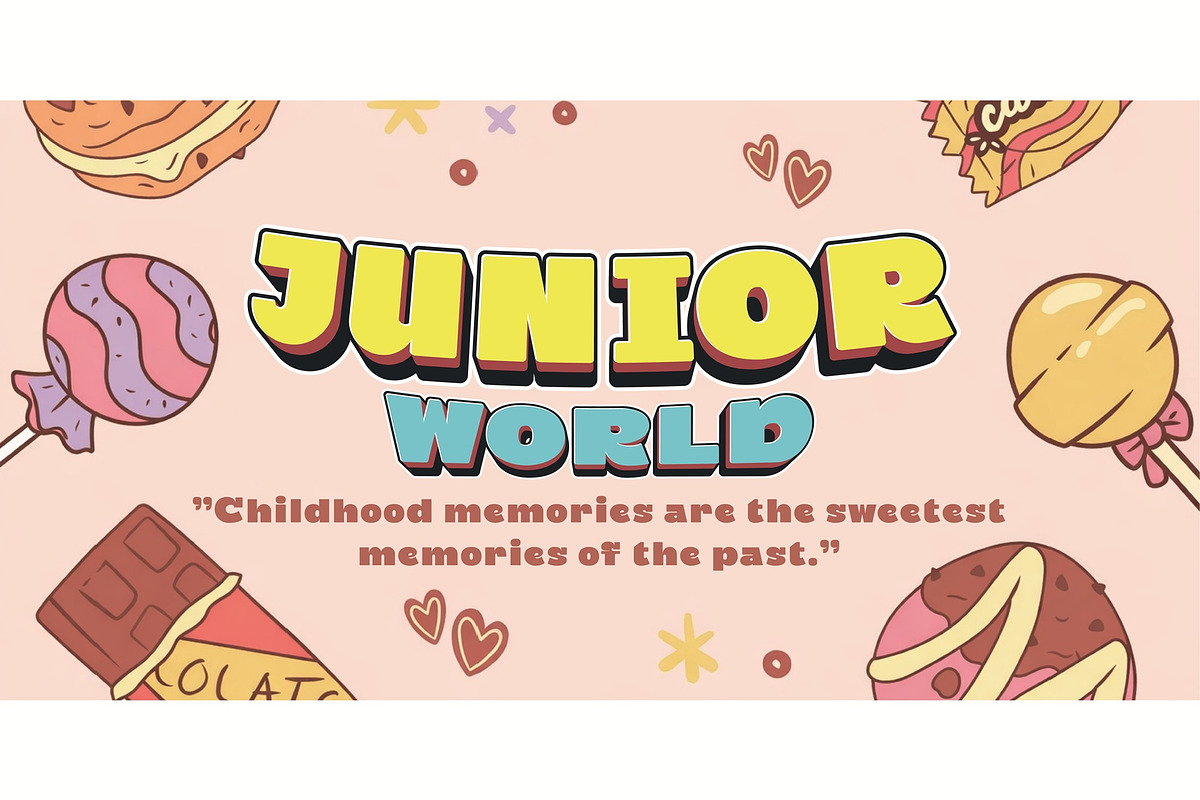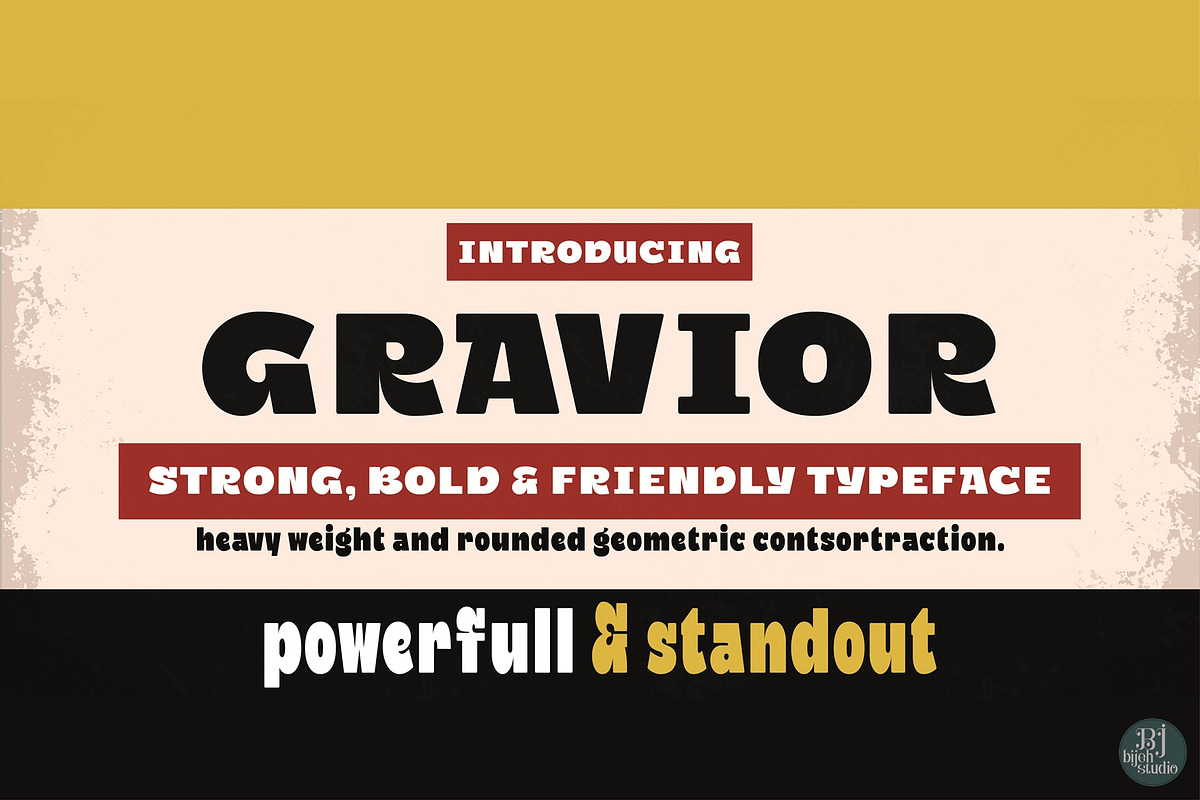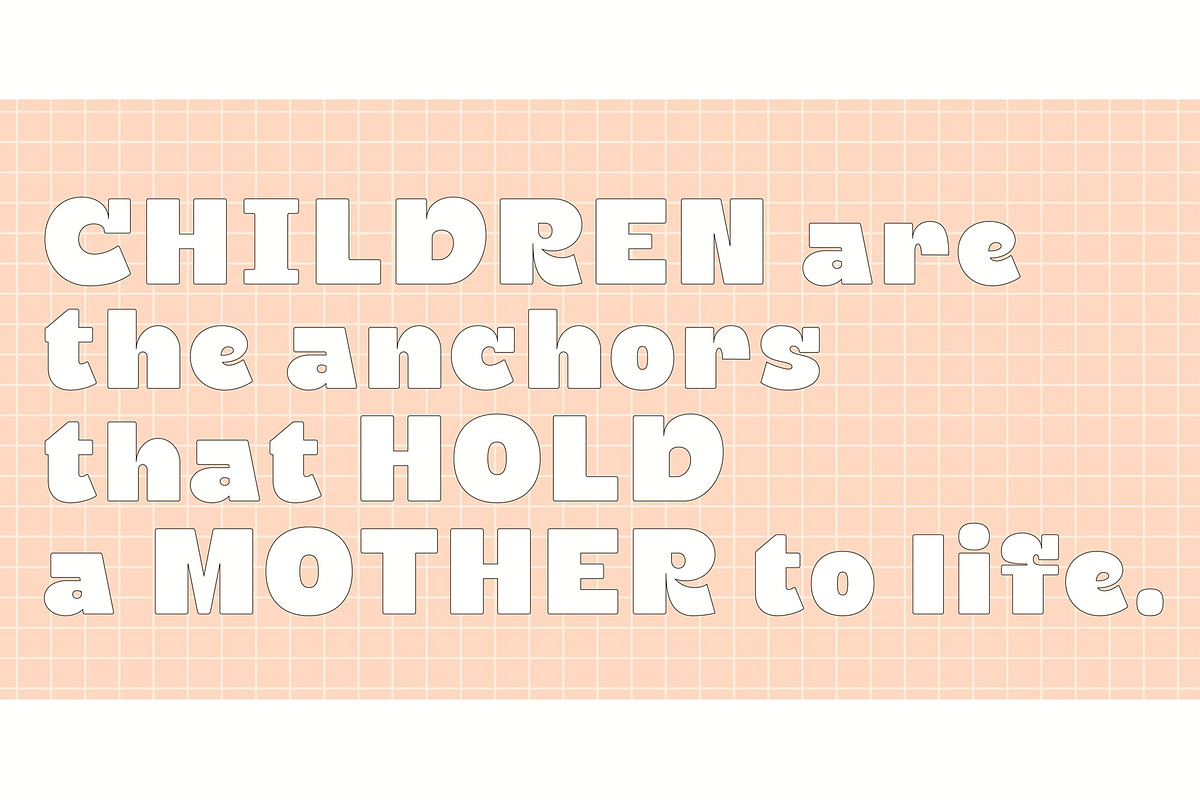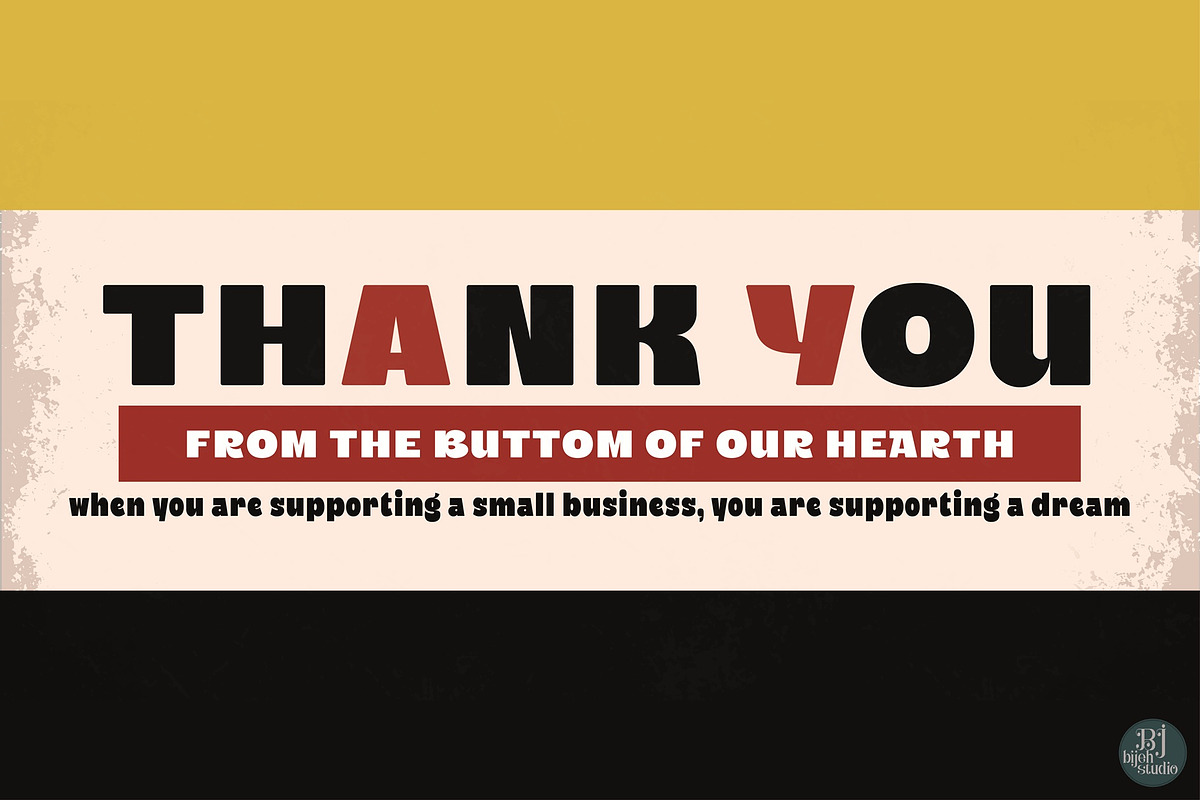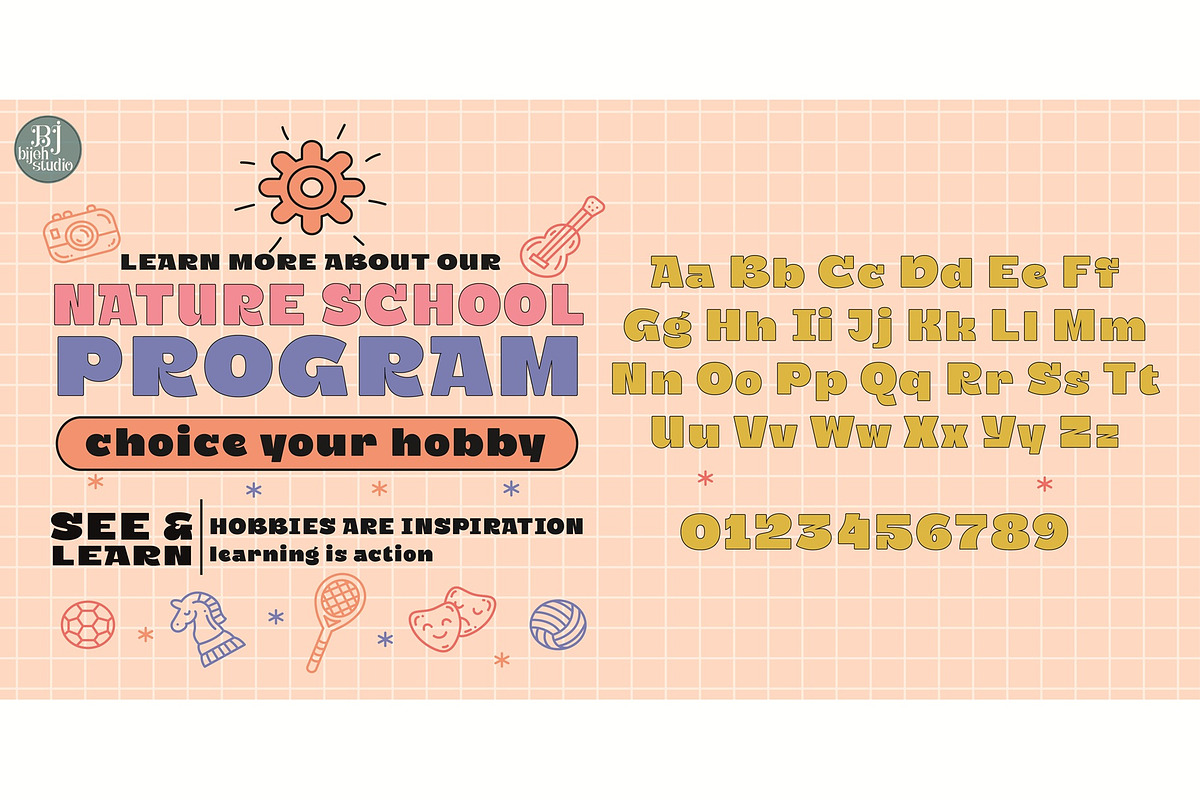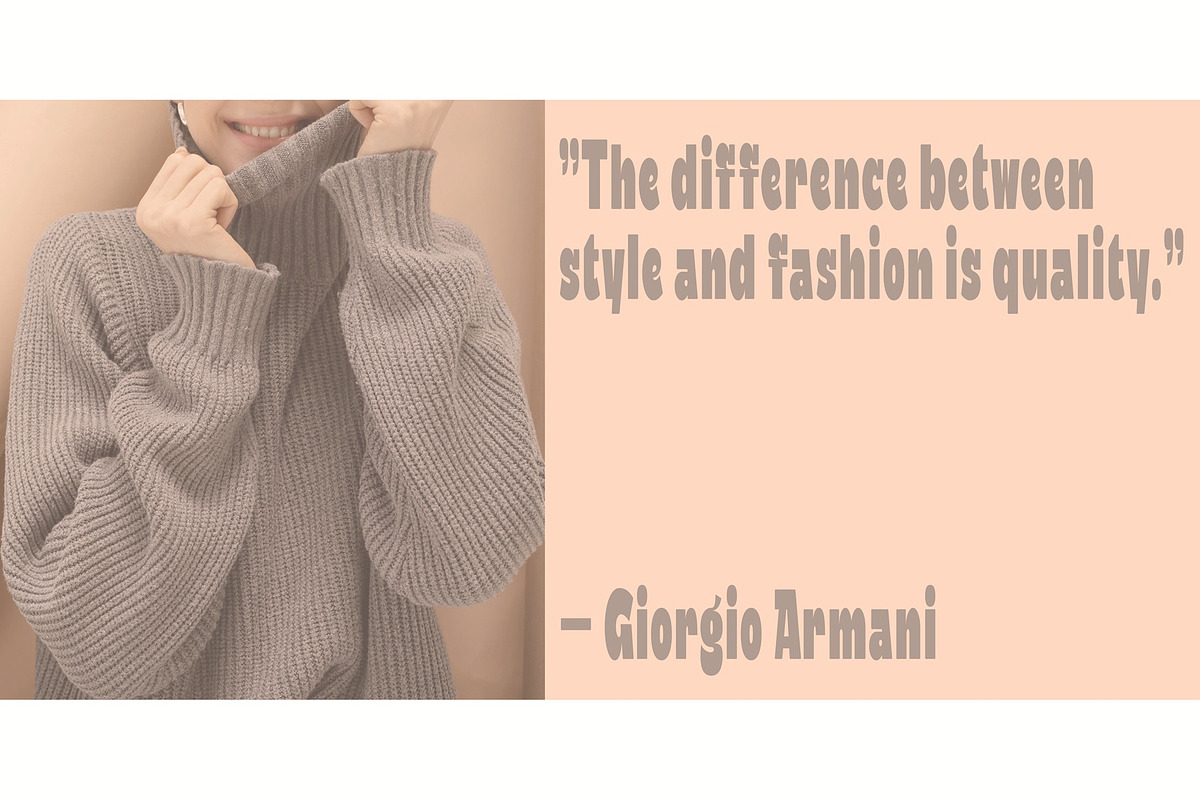
Gravior
Gravior is a bold, contemporary display typeface designed to command attention and deliver strong visual impact. Characterized by its heavy weight, soft geometric curves, and slightly playful structural cuts, Gravior balances power and approachability - making it ideal for branding, headlines, posters, packaging, and digital media that demand presence. The typeface features wide proportions and rounded corners that create a friendly yet confident tone. Distinctive details such as subtle notches, stylized terminals, and expressive letterforms give Gravior a recognizable personality without sacrificing readability. Its uppercase and lowercase sets maintain visual consistency while offering dynamic contrast, enabling designers to build striking typographic hierarchies. Gravior includes a full character set of uppercase, lowercase, numerals, and punctuation, ensuring versatility across creative applications. The numbers are bold and highly legible, while the symbols are crafted to match the font’s chunky aesthetic, preserving harmony across compositions. With its modern retro influence and strong silhouette, Gravior performs exceptionally well in logo design, editorial titles, social media graphics, merchandise, and contemporary advertising. It brings energy, friendliness, and bold character to any visual identity.
Key Features Bold display style with strong visual presence Rounded geometric construction for a friendly feel Unique letter details that enhance brand recognition Complete character set (letters, numerals, symbols) Suitable for print and digital design Perfect for logos, headlines, posters, packaging, and branding Gravior is not just a typeface - it is a visual statement that helps brands stand out with confidence and personality.